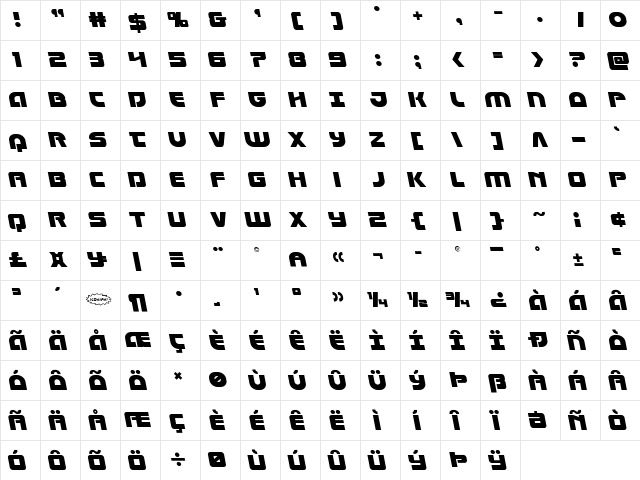
Laser Corps Semi-Leftalic Regular Font Preview
Laser Corps Semi-Leftalic Regular
Design Context for Laser Corps Semi-Leftalic Typeface
Laser Corps Semi-Leftalic is a composed and adaptable typeface that performs quietly and consistently across a wide range of design contexts. The slanted form adds forward momentum and visual energy.
Pro Tip: Use Laser Corps Semi-Leftalic for emphasis, pull quotes, and subheadings where its slanted energy can add rhythm to the layout.